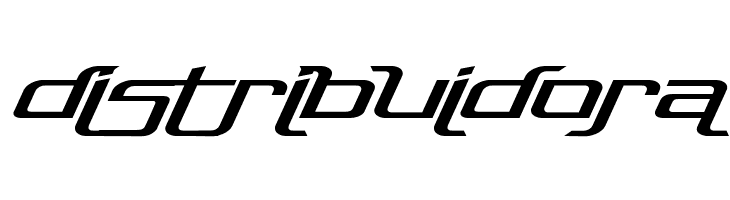
dancing moon script Font
- Font: dancing moon script
( Fonts by dartcanada.tripod.com - Darren Rigby )
A modern, sleek italic font with smooth, flowing lines.